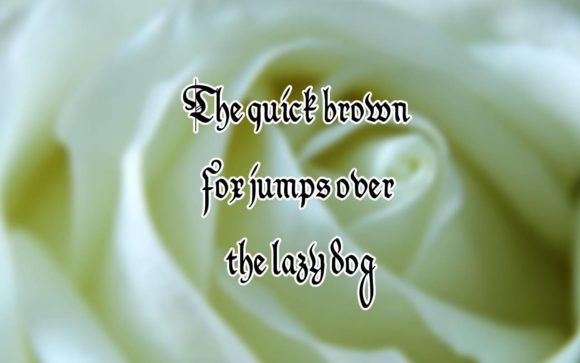
Introduction to Rosamunde Font
Have you ever stared at a blank canvas, eager to bring a creative project to life, only to be halted by the perfect font eluding you? It’s that moment when the design seems incomplete, and the words won’t come together as you envision them. That’s where the enchanting Rosamunde Font comes in – a stunning blackletter font that’s sure to transport your design to a bygone era.
As a valuable resource for designers, the Rosamunde Font offers an unparalleled level of detail and intricacy, making it a must-have for any creative project. Its beautiful gothic-style characters are a testament to the font’s high quality, allowing designers to achieve a level of sophistication and elegance that’s hard to find elsewhere.
Whether you’re working on a design that requires a vintage or old-school feel, the Rosamunde Font is an excellent choice. Its versatility and timeless appeal make it a design resource that’s hard to resist, and with its transparent background, it’s easy to integrate into any project.
Key Features of Rosamunde Font
- High-quality design resource ideal for creative projects, offering a unique and elegant aesthetic.
- Features a transparent background, making it easy to integrate into any design without visual clutter.
- Includes a range of font sizes and resolutions, allowing designers to customize the font to suit their specific needs.
- Unique characteristics include its elegant script and cursive styles, perfect for adding a touch of sophistication to any design.
- Perfect for use in various design contexts, from wedding invitations to branding materials, and everything in between.
Honest Review: Rosamunde Font
As a designer, I’m always on the lookout for high-quality fonts to elevate my creative projects. Recently, I stumbled upon the Rosamunde Font, and I must say it’s been a great addition to my design resource collection.
- ✨ Elegant and sophisticated design aesthetic
- ✨ Beautifully crafted letters with a transparent background, perfect for overlaying on images
- ✨ Versatile and suitable for a wide range of creative projects, from branding to editorial design
- ⚠️ Limited font sizes and styles, which may not be suitable for complex or large-scale projects
- ⚠️ Not ideal for use in small text sizes, as the font may become difficult to read
Overall, I’m impressed with the Rosamunde Font’s high quality and design versatility. While it may not be perfect for every project, it’s a valuable addition to any designer’s toolkit. If you’re looking for a stylish and free font, I highly recommend giving it a try.
Tips for Getting the Most Out of Rosamunde Font
Experiment with different font sizes and styles to add visual interest to your design. Use the font in combination with other design elements to create a cohesive look.
Common Use Cases for Rosamunde Font
The Rosamunde Font is suitable for various creative projects, including blog posts, social media graphics, and presentations. Its high-quality design makes it an excellent choice for business and personal branding.